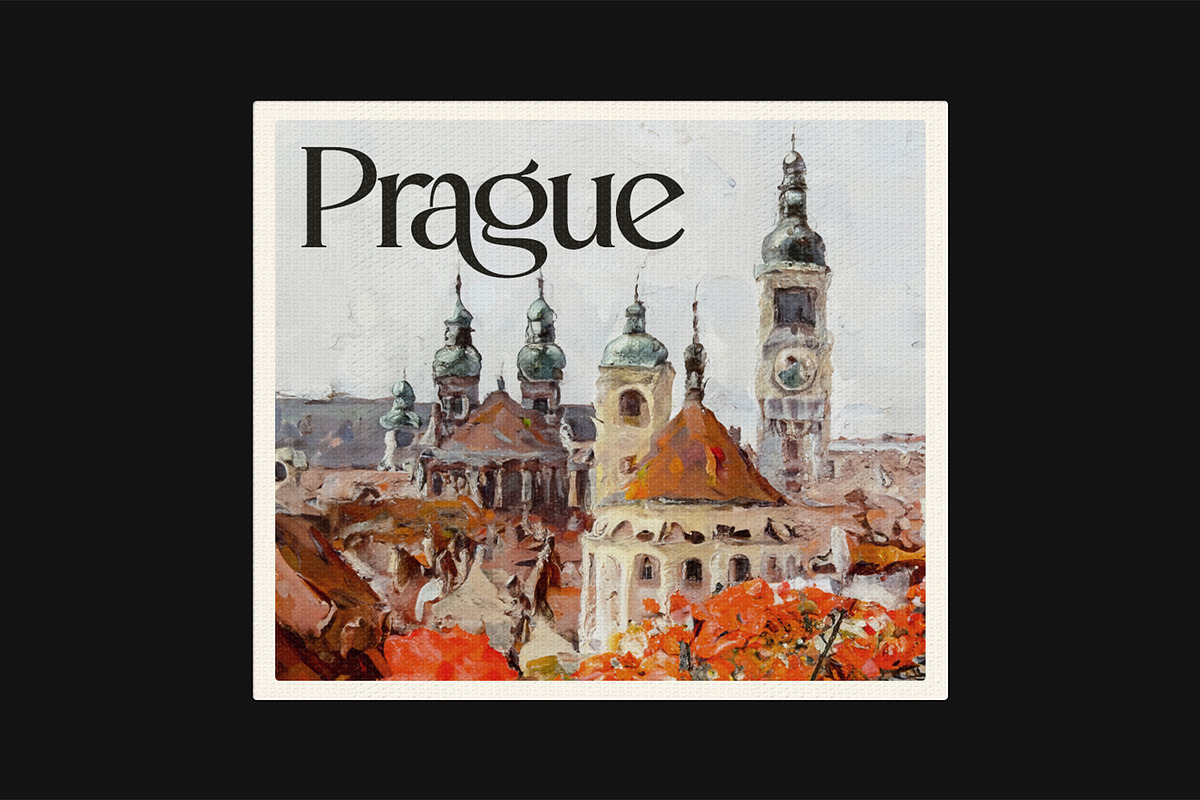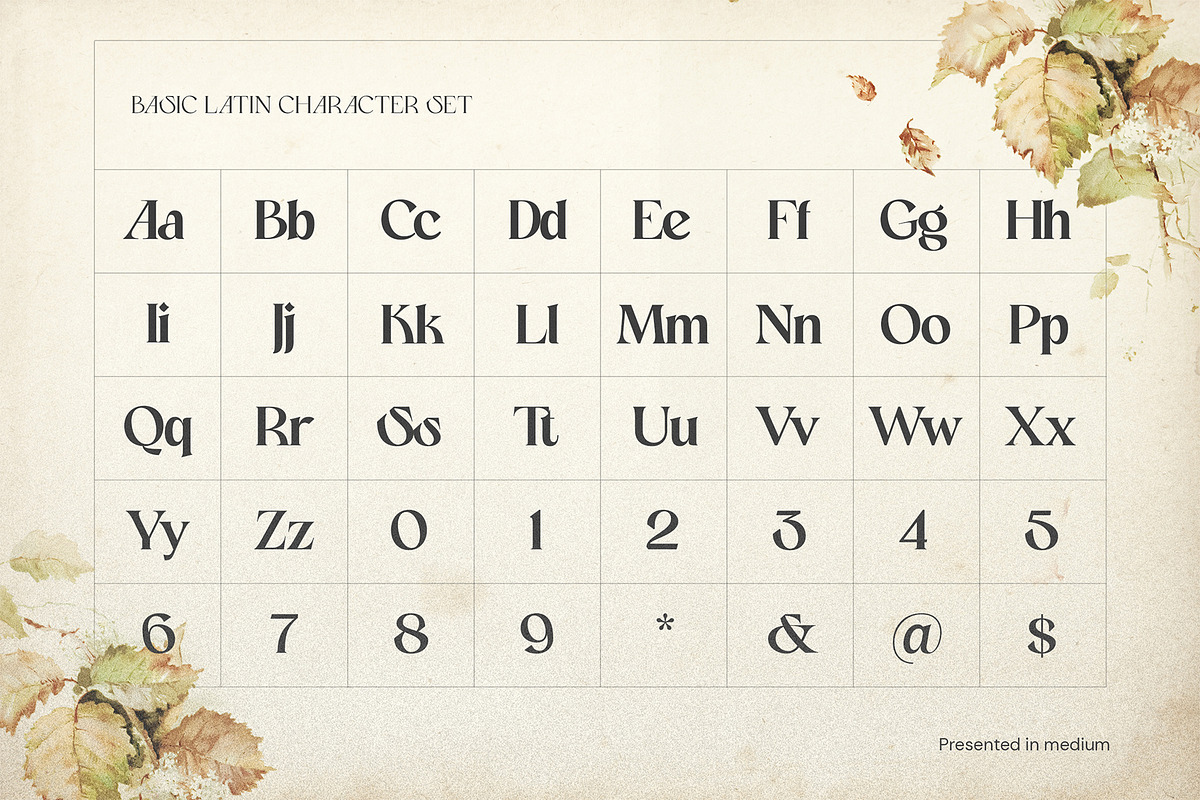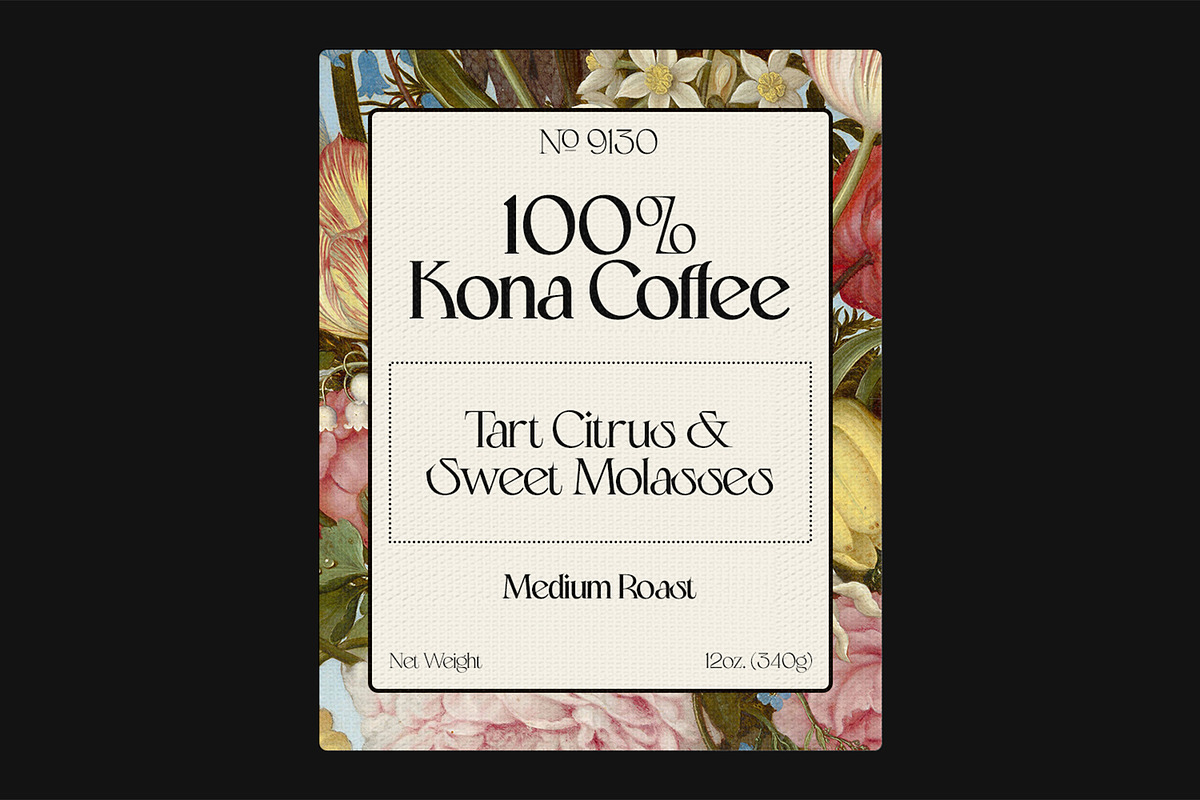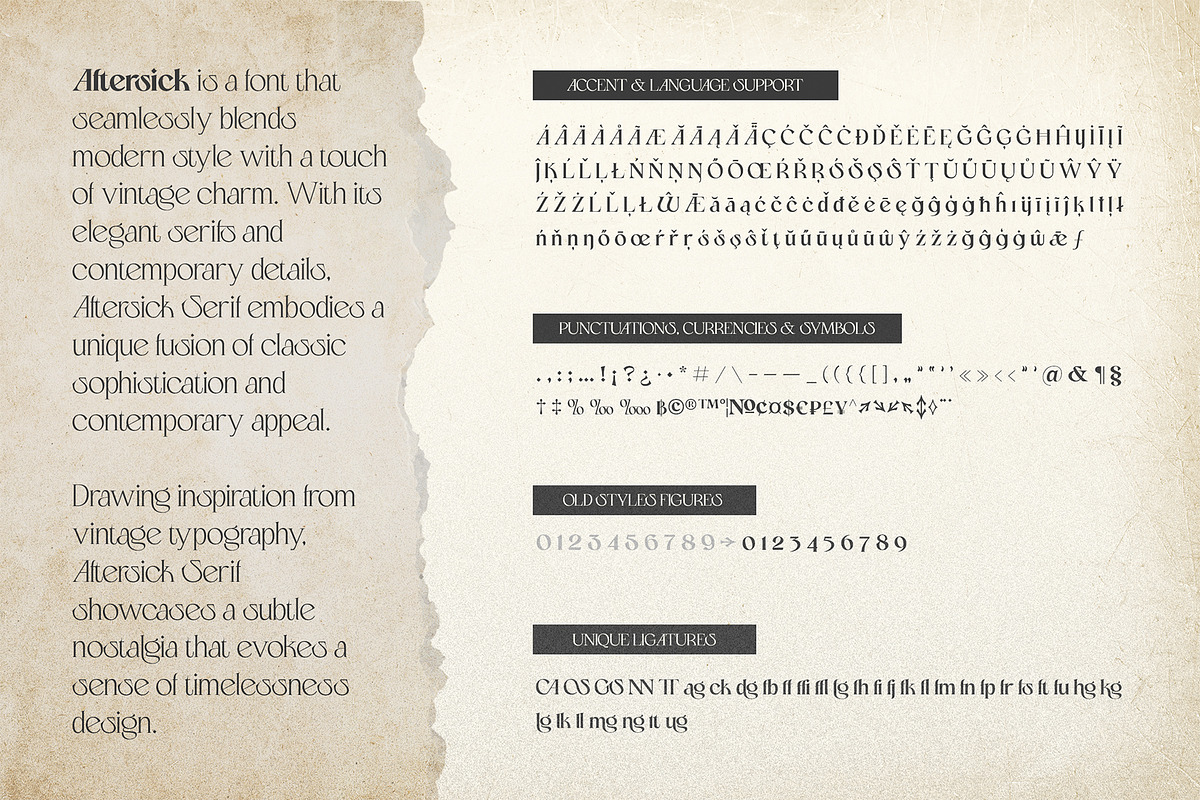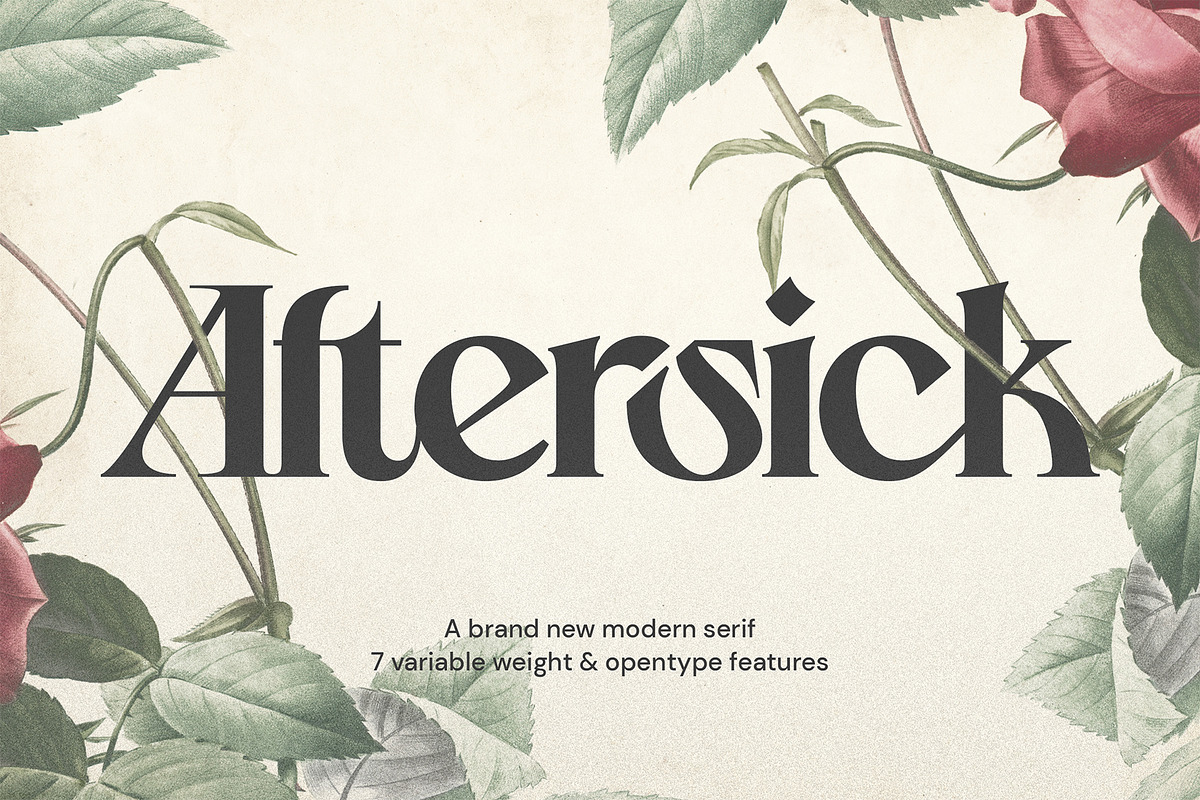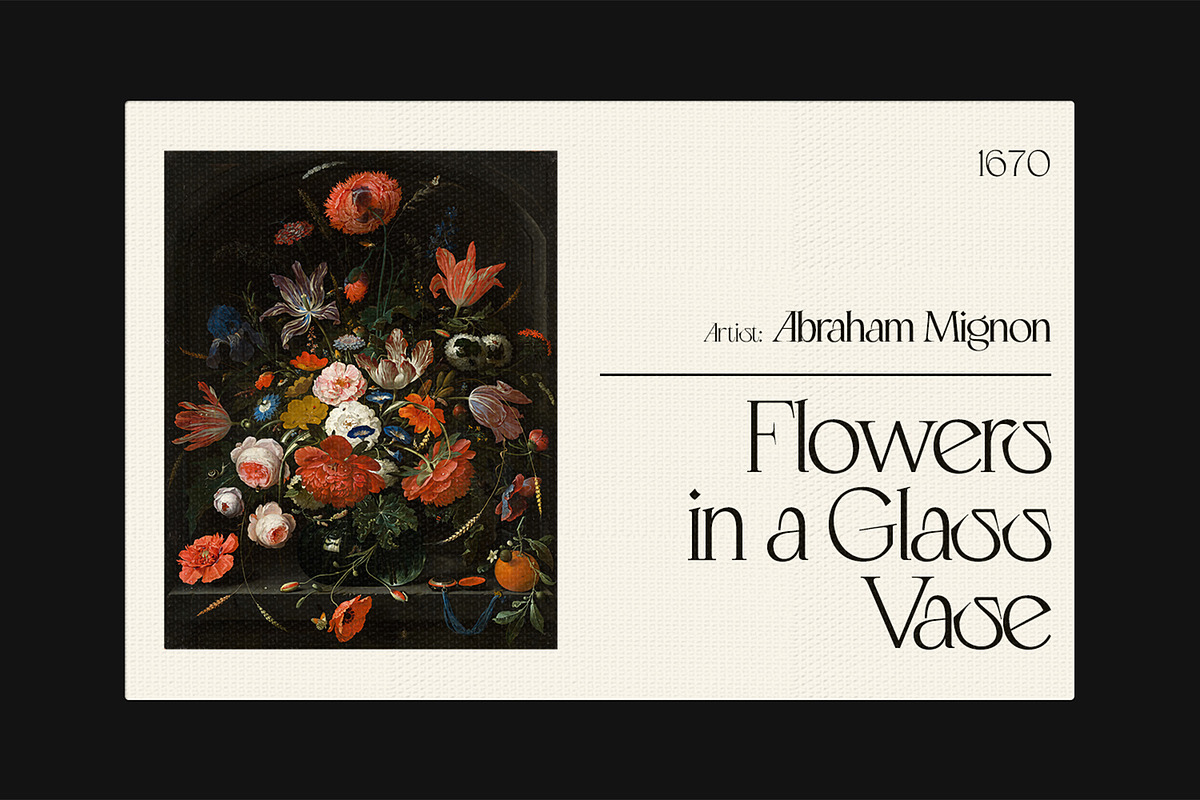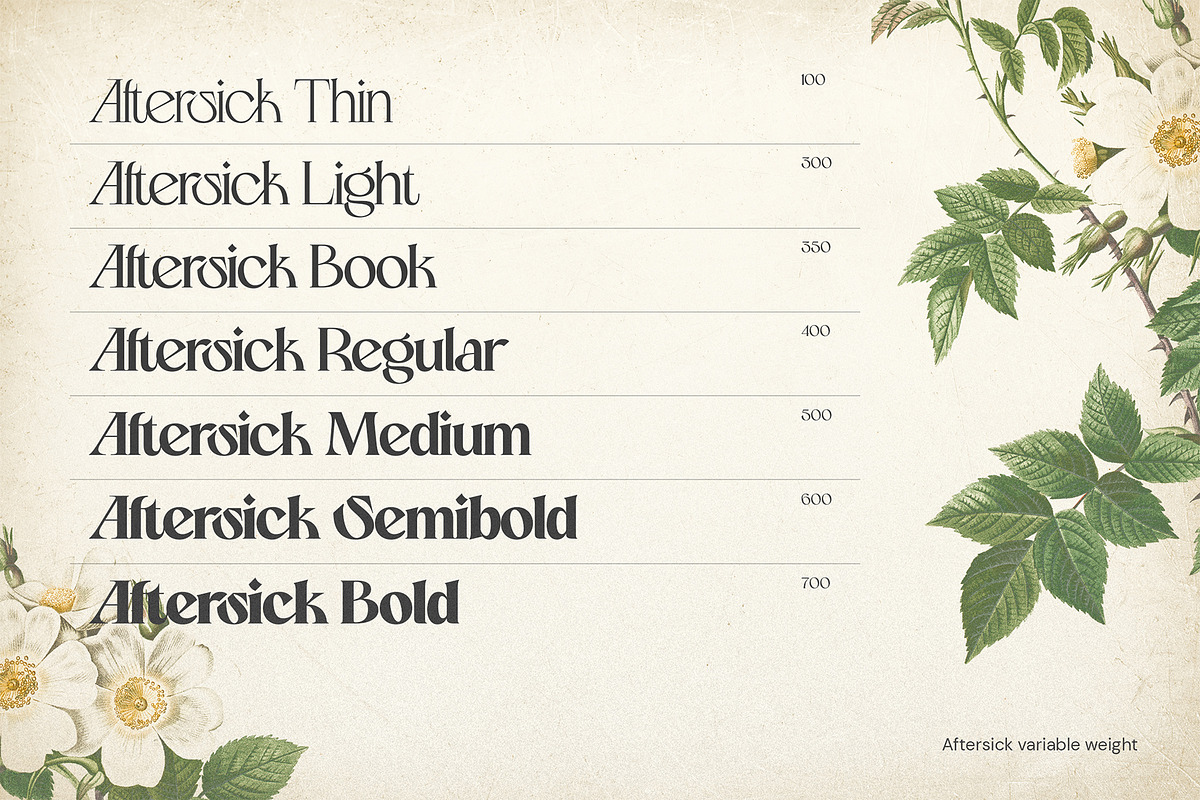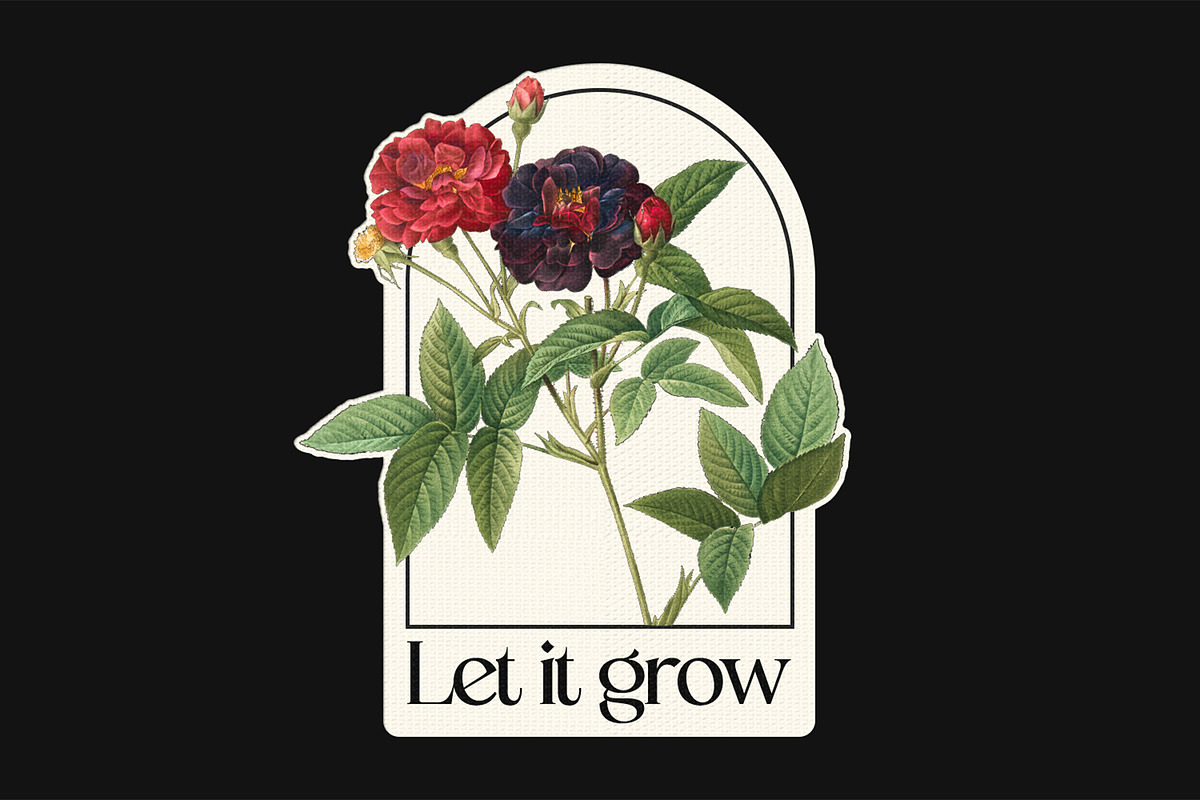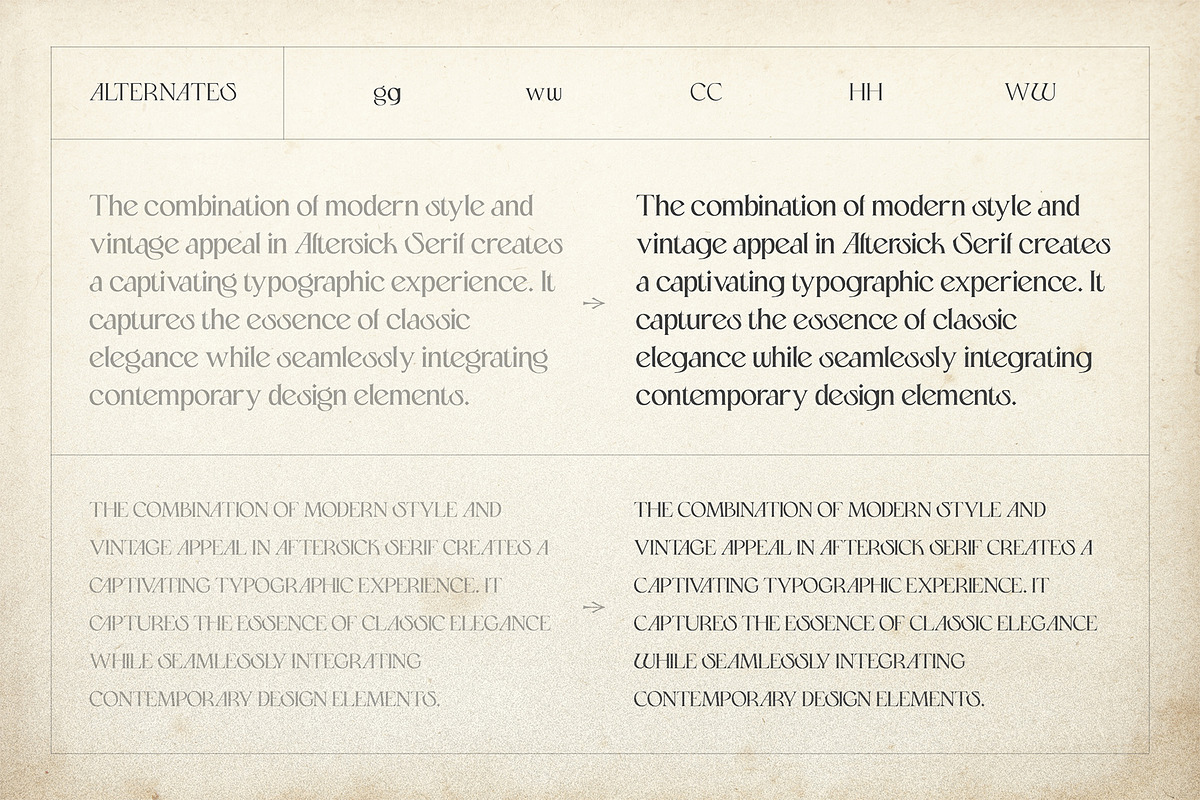
Aftersick - Display Font
Aftersick Serif: Where Modern Elegance Meets Vintage Charm!
Elevate your designs with Aftersick, a font that effortlessly marries contemporary flair with a nostalgic touch of the past. Aftersick Serif boasts elegant serifs and modern details, creating a truly distinctive typeface that exudes a blend of classic sophistication and contemporary allure. Inspired by the grace of vintage typography, Aftersick Serif carries a subtle hint of nostalgia, invoking a timeless quality in your designs. This font is not just a typeface; it’s an experience, taking you on a journey through eras of design, seamlessly woven into a single, captivating font.
Whether you’re crafting a logo, designing a website, or working on any project that demands a unique typographic touch, Aftersick Serif is the answer. It’s more than just a font; it’s a testament to the enduring power of classic design elements, seamlessly integrated into the modern era. Don’t settle for ordinary fonts when you can have something extraordinary like Aftersick. Elevate your designs, evoke a sense of nostalgia, and captivate your audience with the timeless charm of Aftersick Serif. Get it now and watch your creativity transcend eras!